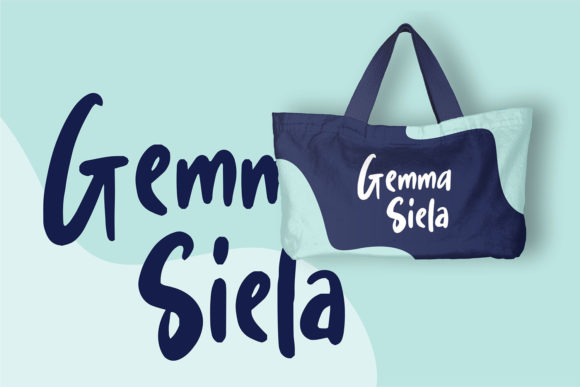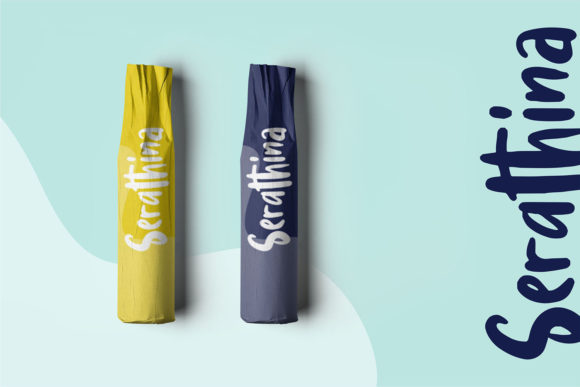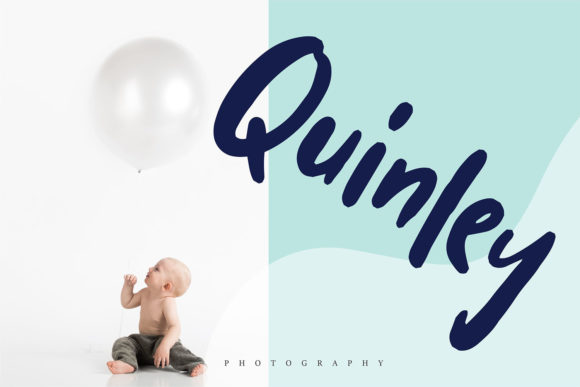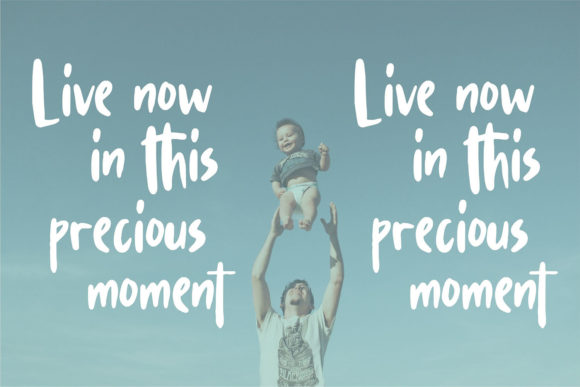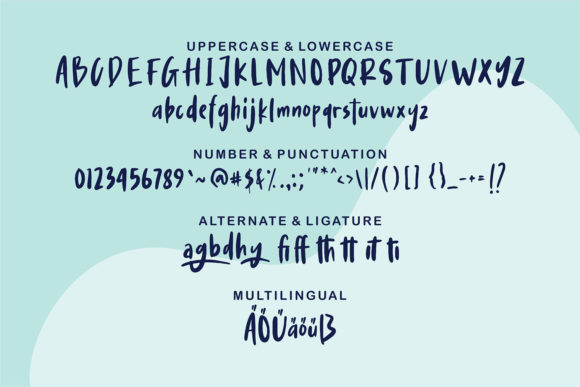
Do you remember that moment when you stumble upon the perfect font for your creative project? The one that makes your design pop and sets the tone for your entire visual identity? For many designers, that moment is what makes all the hard work worth it. For those who are about to experience it, we’re excited to introduce you to the Pasgal Font, a high-quality display font that’s about to take your designs to the next level.
With its well-marked characters and sleek design, Pasgal Font is the ideal choice for creating urban or trendy designs. Whether you’re working on a project that requires a modern and edgy feel or a more playful and whimsical vibe, this font is sure to deliver. And the best part? It’s a free download, making it an invaluable resource for designers of all levels.
So, what makes Pasgal Font so valuable for designers? For starters, its transparent background makes it easy to layer and combine with other design elements. Plus, its high-quality design ensures that your text will always stand out on any background. Whether you’re working on a personal project or a client’s design, Pasgal Font is a must-have in your design arsenal.
- Designed to be highly versatile, making it suitable for a wide range of design applications.
- Features a unique, modern aesthetic that sets it apart from other fonts in its class.
Honest Review: Pasgal Font
As a designer, I’m always on the lookout for high-quality design resources to elevate my creative projects. The Pasgal Font is one of the fonts I’ve recently discovered, and I’m excited to share my honest review.
- ✨ Unique and creative design: The Pasgal Font offers a distinctive style that can add a touch of personality to any project.
- ⚠️ Limited font styles: The Pasgal Font only offers a limited number of font styles, which might not be suitable for designers who need a wide range of options.
- ⚠️ Not ideal for body text: Due to its unique design, the Pasgal Font might not be the best choice for body text, as it can be distracting.
Overall, I think the Pasgal Font is a great addition to any designer’s toolkit, offering a creative and unique design element for projects. While it has some limitations, I believe it’s worth exploring for designers looking to add some personality to their work.
Tips for Getting the Most Out of the Pasgal Font
1. Use the Pasgal Font on a transparent background to create a clean and minimalist design.
2. Experiment with different font sizes and styles to add visual interest to your design.
3. Combine the Pasgal Font with other design elements to create a unique and creative project.
The Pasgal Font is perfect for:
1. Creating eye-catching social media graphics.
2. Designing high-quality business cards and brochures.
3. Adding a professional touch to presentations and reports.